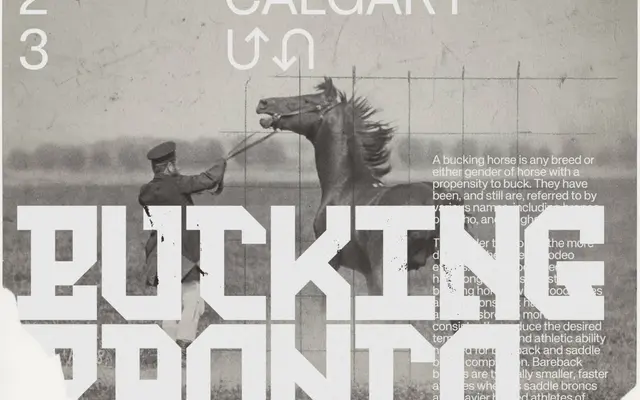
KH Shutter
Kurppa Hosk Type · Thomas Kurppa, Jakob Ekelund, Wille Larsson · 2018
An uppercase-only geometric display typeface with fixed-width spacing and structural borrowings from the Hebrew alphabet, originating from an unused identity proposal for Fotografiska New York.
Designed by Thomas Kurppa, Jakob Ekelund and Wille Larsson between 2018 and 2022, KH Shutter applies the 45-degree angles and geometric construction typical of Kurppa's work to letter forms influenced by Hebrew alphabet characteristics. Originally conceived for a photography exhibition identity, the proposal was set aside but the typeface was developed into a three-weight family. Despite its expressive headline nature, it carries an extensive character set including accented Latin, currency symbols, arrows and mathematical notation.
An uppercase-only monospaced display typeface built on geometric construction and 45-degree angles, drawing structural cues from the Hebrew alphabet. Its expressive headline character and fixed-width construction place it firmly in the display category.